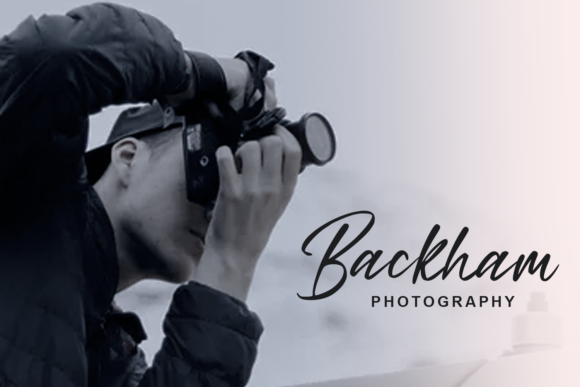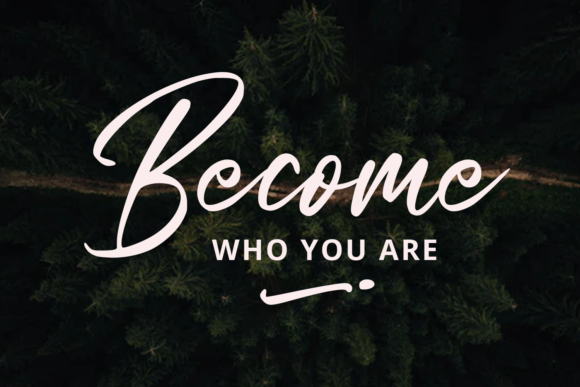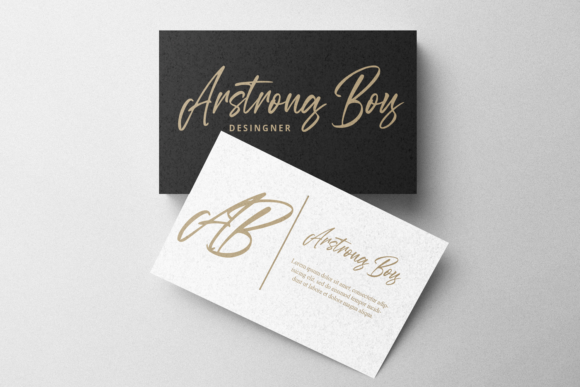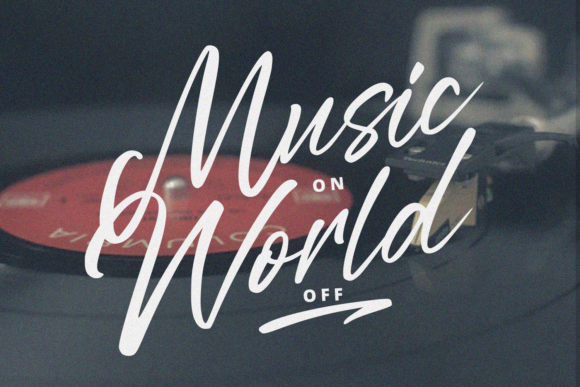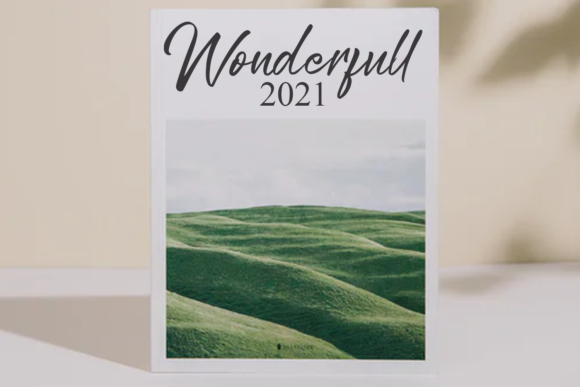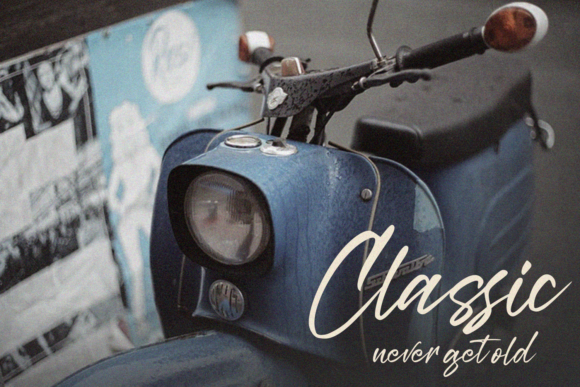
Introduction to Ride Night Font
Remember the thrill of stumbling upon that perfect design element that brings your creative project to life? It’s the ‘aha’ moment that keeps designers coming back for more. For me, that moment came when I discovered the Ride Night Font – a stunning script font that adds a touch of elegance to any design.
This versatile font has quickly become a go-to design resource for creatives of all levels. Its relaxed and sophisticated vibe makes it an ideal fit for a wide range of designs, from branding and packaging to social media graphics and more. Whether you’re working on a high-end project or a simple free download, the Ride Night Font is sure to elevate your designs to new heights.
What sets the Ride Night Font apart is its ability to add a sense of sophistication and style to any design, all while maintaining a transparent background that allows your creative vision to shine through. With its high-quality design and versatility, it’s no wonder this font has become a valuable asset for designers seeking to take their projects to the next level.
Key Features of Ride Night Font
- High-quality design resource perfect for creative projects, ideal for use in graphic design, typography, and digital art.
- Features a transparent background, allowing for easy integration into various design elements and backgrounds.
- Includes multiple font styles and weights, providing designers with a versatile tool for creative expression.
- Designed at a high resolution of 300 DPI, ensuring crisp and clear text output when used in various design applications.
- Unique and stylish design makes it perfect for use in a variety of creative projects, from logos and branding to posters and social media graphics.
Honest Review: Ride Night Font
As a designer, I’m always on the lookout for high-quality design resources to elevate my creative projects. Recently, I stumbled upon the Ride Night Font, and I’m excited to share my honest review.
- Unique and edgy design aesthetic that’s perfect for neon-lit or nighttime-themed projects.
- High-quality vector graphics that maintain their crispness even when scaled up or down.
- Transparent background, making it easy to use on various backgrounds and designs.
- Limited character set, which may not be suitable for longer text-based projects.
- No bold or italic variations, which can limit the font’s versatility.
Overall, I’m impressed with the Ride Night Font’s unique design and high-quality graphics. While it has some limitations, I believe it’s a great addition to any designer’s toolkit, especially for creative projects that require a bold and edgy look.
Ride Night Font
Ride Night Font is a high-quality, free download font ideal for creative projects that demand a unique and eye-catching design. With its transparent background, this font offers endless possibilities for customization and creativity.
Tips for Getting the Most Out of Ride Night Font
To get the most out of Ride Night Font, experiment with different font sizes, colors, and combinations to create unique and visually appealing designs. You can also use this font in conjunction with other design elements to add depth and interest to your project.
Ride Night Font is ideal for use in a variety of creative projects, including graphic design, branding, and digital marketing. It’s perfect for creating eye-catching social media posts, posters, and flyers, as well as high-quality graphics and logos.